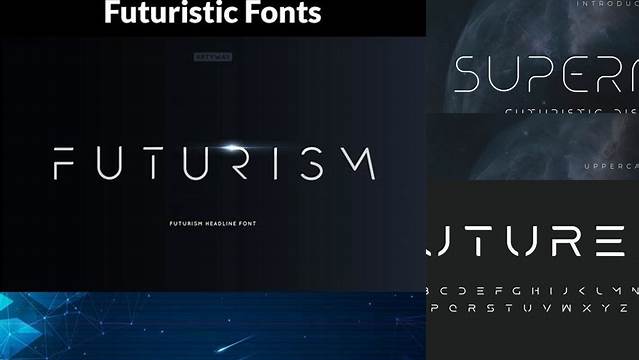
Futuristic Fonts On Fontspace: Your Ultimate Typography Guide
Hey there, font enthusiasts! Are you ready to dive headfirst into the dazzling world of futuristic fonts? If you're anything like me, you're probably always on the lookout for that perfect typeface to give your designs a cutting-edge, sci-fi feel. That's where Fontspace comes in – a treasure trove of incredible fonts, including a fantastic selection of futuristic styles. In this article, we're going to explore the best of what Fontspace has to offer, discussing the unique characteristics of these fonts, how to use them effectively, and even a few examples to get your creative juices flowing. So, grab your digital paintbrush, and let's embark on a typography adventure!
Unveiling the Essence of Futuristic Fonts
Futuristic fonts are more than just letters; they're a visual representation of the future. They aim to capture the aesthetics of technology, space exploration, and advanced concepts. They often feature clean lines, geometric shapes, and a sense of sleekness, making them perfect for projects aiming to evoke a sense of innovation, modernity, or a glimpse into the future. When we talk about futuristic fonts, we are talking about fonts with sharp angles, bold weights, and unconventional letterforms. These fonts often draw inspiration from technology, space exploration, and the digital world. They can create a sense of movement and dynamism, which is useful for capturing the attention of your audience. Many futuristic fonts are also designed to be highly legible, so your message is always clearly delivered. Futuristic fonts are not just limited to science fiction or tech-related projects; they can be used in various contexts, like branding, graphic design, and even web design, to communicate a modern and forward-thinking image. They are designed to be versatile and expressive. Their unique letterforms allow them to stand out from the crowd and add a sense of sophistication to any project. These fonts can range from minimalist and sleek designs to more complex and elaborate styles. The choice depends on your project's specific needs and the message you want to convey. Therefore, understanding the different types of futuristic fonts and their characteristics will allow you to find the right font to perfectly complement your design and make it stand out. When selecting a futuristic font, consider the mood you want to set and the message you want to deliver. Your font choice will significantly impact how your audience perceives your design. Are you aiming for a bold and assertive look, or do you want something more subtle and refined? The right futuristic font can add the perfect touch and enhance the overall visual appeal of your project. Always consider readability; even though futuristic fonts are visually striking, they must be legible to communicate your message effectively. Always experiment with different fonts and see how they work with your design.
The Role of Geometry and Minimalism in Futuristic Typography
Geometric shapes and a minimalist approach are at the heart of futuristic typography. The use of clean lines, perfect circles, squares, and other geometric figures creates a sense of order, precision, and technological advancement. These shapes are often combined in creative ways to form the letters, resulting in a unique and modern look. This minimalist aesthetic is about reducing the design to its essentials, removing unnecessary details, and focusing on the core message. By avoiding clutter, these fonts emphasize clarity and ease of understanding, which aligns with the high-tech feel. This design philosophy is closely connected to technology and the digital world. The simplicity of the shapes reflects the elegance and efficiency often associated with modern technology. It's like the fonts are saying, "Less is more," communicating sophistication and a forward-thinking attitude. This approach is great because it makes designs easily adaptable across various platforms and sizes. Whether it's a small screen or a giant billboard, these fonts maintain their impact and readability. They are also very useful in creating a sense of professionalism and trust, especially in the tech industry. Their clean look makes them suitable for various projects, from branding to website design and everything in between. They're great for conveying your brand's values and positioning it as innovative and modern. The use of geometry and minimalism is not just a stylistic choice; it's a way of making sure that the fonts match the sophisticated essence of future-oriented designs. The combination of these two elements provides a versatile and compelling foundation for a wide range of design projects. It makes for a design that is both visually appealing and easy to grasp.
Exploring Popular Futuristic Font Styles
Now, let's dive into some popular futuristic font styles that you can find on Fontspace. These fonts are the building blocks of the digital age, designed to reflect the advancements of the future. You'll see their effect across diverse projects, from sleek websites to stunning graphic designs. We'll look at the different characteristics that make these fonts stand out and how they can boost the aesthetic appeal of your projects. Some are inspired by science fiction movies, while others are rooted in technological innovations. There is a diverse variety, including bold, geometric sans-serifs, and more complex, stylized typefaces. These fonts are essential for conveying a sense of innovation and modernity. You will learn how to choose the best font for your needs, whether you are aiming for a clean and minimalist look or a bold and assertive design. Whether you're a seasoned designer or a beginner, these futuristic font styles will offer you inspiration and practical knowledge. Remember that your font choice can greatly influence how your audience perceives your work, so let's explore how you can use these styles to convey the right message. The careful use of these fonts will add a modern touch to any design project. You can create engaging content for your audience by using these styles. Let's discover the main characteristics of each style and learn how to bring these futuristic fonts into your design projects. You will be able to select the ideal fonts to give your designs a futuristic and impactful appearance. This will make your work stand out and leave a lasting impression on your viewers.
Sans-Serif: The Cornerstone of Modernity
Sans-serif fonts are the bedrock of futuristic typography, known for their clean lines and uncluttered design. They omit the serifs—the small decorative strokes found at the ends of letters—which contributes to their modern and sleek appearance. This simplicity makes them incredibly versatile and suitable for a range of applications, from website headers to app interfaces. The clean appearance of sans-serif fonts makes them extremely easy to read, even at smaller sizes or on screens with low resolution. This characteristic is extremely important in modern design, where legibility is key. These fonts exude a sense of minimalism and sophistication, making them a great choice for projects that aim for a contemporary look. When choosing a sans-serif font, consider the weight and style of the font. Bold and heavy weights can convey a strong and confident image, while lighter weights provide a more delicate and elegant aesthetic. Sans-serif fonts work exceptionally well in digital environments. They are optimized for screen display, reducing pixelation and maintaining their visual clarity. The geometric sans-serif styles feature letters based on geometric shapes, such as circles and squares. This contributes to their modern and technological aesthetic. These fonts are very useful in branding and logo design. They provide a sense of unity and modernity that will help your brand. Sans-serif fonts are excellent for creating a sense of professionalism and innovation, whether you are designing a website or creating a presentation. They are an important element for design projects that aim to convey a sense of modernity and progress. By exploring their various styles and usages, you can successfully improve your designs. Using a sans-serif font will enhance the visual appeal and effectiveness of your design.
Geometric Fonts: Angular and Architectural Designs
Geometric fonts are characterized by the use of basic geometric shapes, like circles, squares, and triangles, to form letters. They are a quintessential style of futuristic fonts, offering a distinct and modern look. The sharp angles and clean lines give these fonts a feeling of architectural precision, making them ideal for projects where precision and innovation are key. These fonts are perfect for conveying a sense of technological advancement and forward-thinking. Their minimalist designs reduce any unnecessary elements, allowing the focus to stay on the message. This makes them very useful for logos, headings, and other prominent design features. These fonts provide a unique visual appeal. They stand out and attract the eye, making your designs memorable. Their striking design makes them perfect for modern projects. The geometric structure provides a sense of stability and order, which is why these fonts are often used in branding and corporate designs. When choosing a geometric font, consider the level of detail and the intended use. Some geometric fonts are very intricate and elaborate, while others are simple and clean. The choice should depend on your project's needs and the mood you want to create. Some geometric fonts are also inspired by the Bauhaus movement. The fonts embody the same principles of functionality, minimalism, and geometric purity. These fonts create a strong sense of visual consistency across all design elements. With geometric fonts, you can create cohesive and consistent designs. Their versatility makes them ideal for different project needs. By using geometric fonts, you can create designs that represent innovation and modernity. They are an essential part of modern design. Their unique characteristics and visual appeal will help your designs stand out.
Display Fonts: Bold Statements for Impactful Headlines
Display fonts are designed to catch the eye and make a statement. They are usually larger and more elaborate than other font styles, making them ideal for headlines, titles, and short text. These futuristic fonts are characterized by their unique letterforms, bold weights, and creative designs. Display fonts come in many styles. The different styles help you create a specific aesthetic. They allow you to convey a wide range of moods, from sophisticated and elegant to bold and assertive. Display fonts can be used to create designs that are not only visually stunning but also easily recognizable. When choosing a display font, consider the overall feel of your design. Do you want a font that is bold and assertive, or do you prefer a font that's more playful and approachable? Your choice should reflect the message you wish to convey. Display fonts are perfect for branding projects. They can improve your brand identity, helping you create a lasting impression on your audience. You can use them on posters, flyers, and social media graphics, to make your message more engaging. They are also great for website design, helping you create striking headlines and page elements. They are a great choice for those who want their designs to stand out. They are the most effective way to grab attention. Display fonts make your designs more memorable and leave a lasting impact on your audience. By using these fonts, you can bring personality and flair to any design project. You'll find that these fonts can enhance the impact of your message, making your designs more effective and memorable. These fonts allow you to create content that is attention-grabbing.
Unleash Your Creativity: Design Your Future
Now it's your turn to unleash your creativity! With a solid understanding of futuristic fonts and the resources available, you are well-equipped to start creating your own cutting-edge designs. Don't be afraid to experiment and try new things. Play around with different fonts, colors, and layouts. Try various combinations to find out what works best for your designs. Explore the vast library of fonts available on Fontspace and other online platforms. Don't be afraid to mix and match. Let the futuristic fonts you choose reflect your brand's personality and style. Think about the message you want to convey with your designs. Use your creativity to tell a story and make a lasting impression. The world of design offers endless possibilities for innovation. As you start to design, always look for feedback and comments. Be willing to refine your work based on these insights. Use design tools and resources. This will help you create innovative designs. With these tools, you can transform your ideas into reality. Remember, the most important thing is to have fun and to enjoy the process. Make your designs stand out. Create visuals that will captivate your audience. Now, go out there, be creative, and design your future with the power of futuristic fonts!